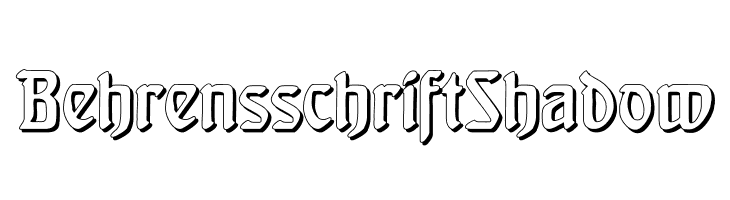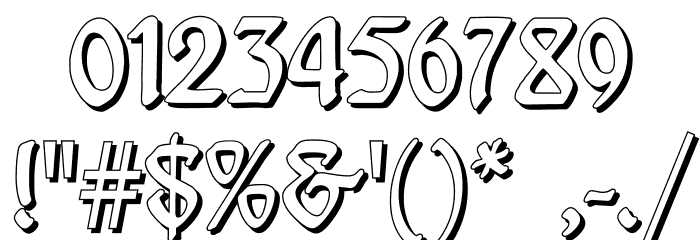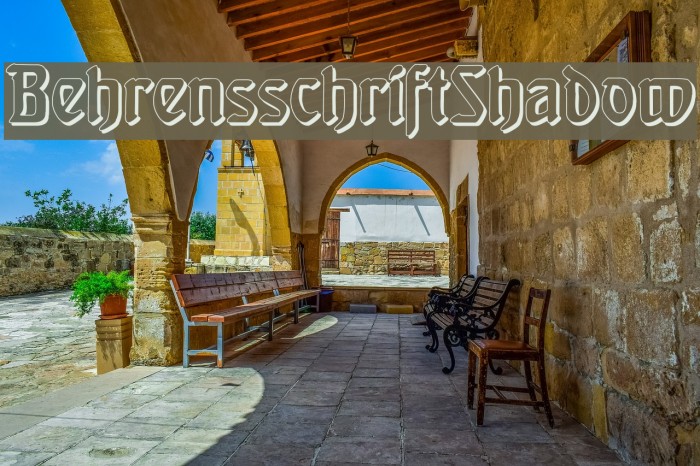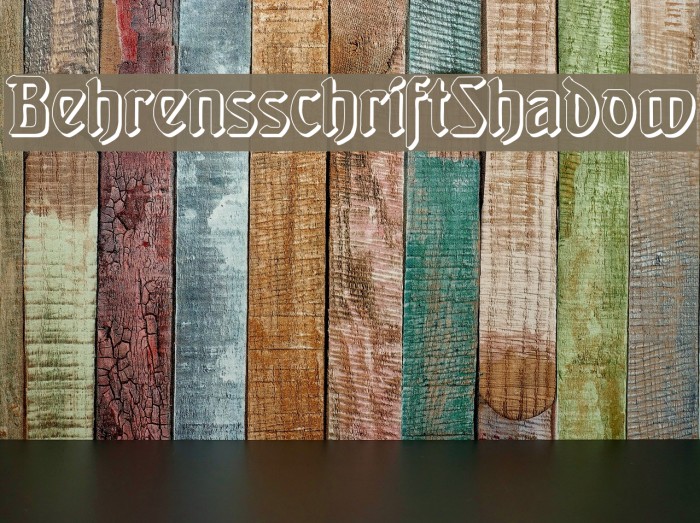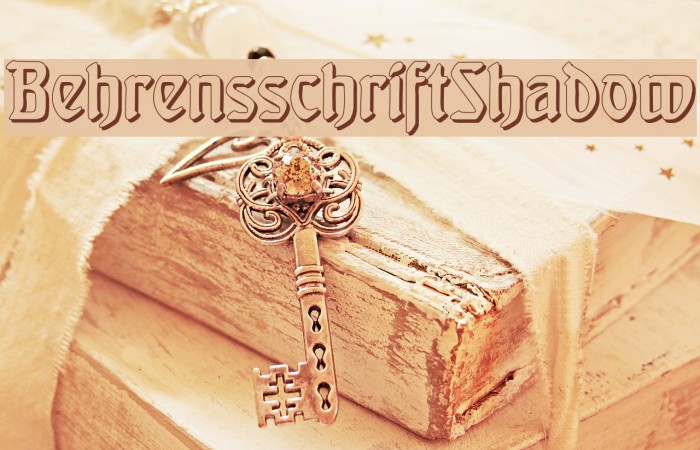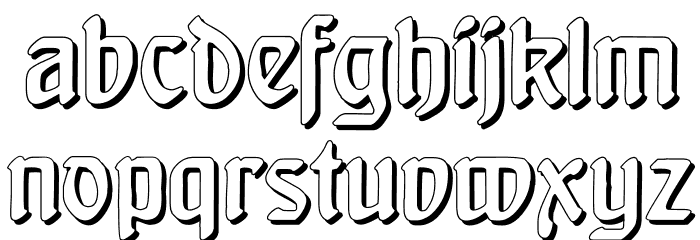
BehrensschriftShadow Font
BehrensschriftShadow Description
This font features a bold, shadowed style that combines elements of both traditional and modern design. The characters are structured with a strong, geometric form, enhanced by a distinct shadow effect that gives depth and dimension. The uppercase letters exhibit a commanding presence with sharp angles and clean lines, while the lowercase letters maintain a consistent style, offering a harmonious balance. The numerals and special characters are crafted with the same attention to detail, ensuring uniformity across the entire typeface. This font's unique shadowing adds a layer of sophistication, making it stand out in any design context.